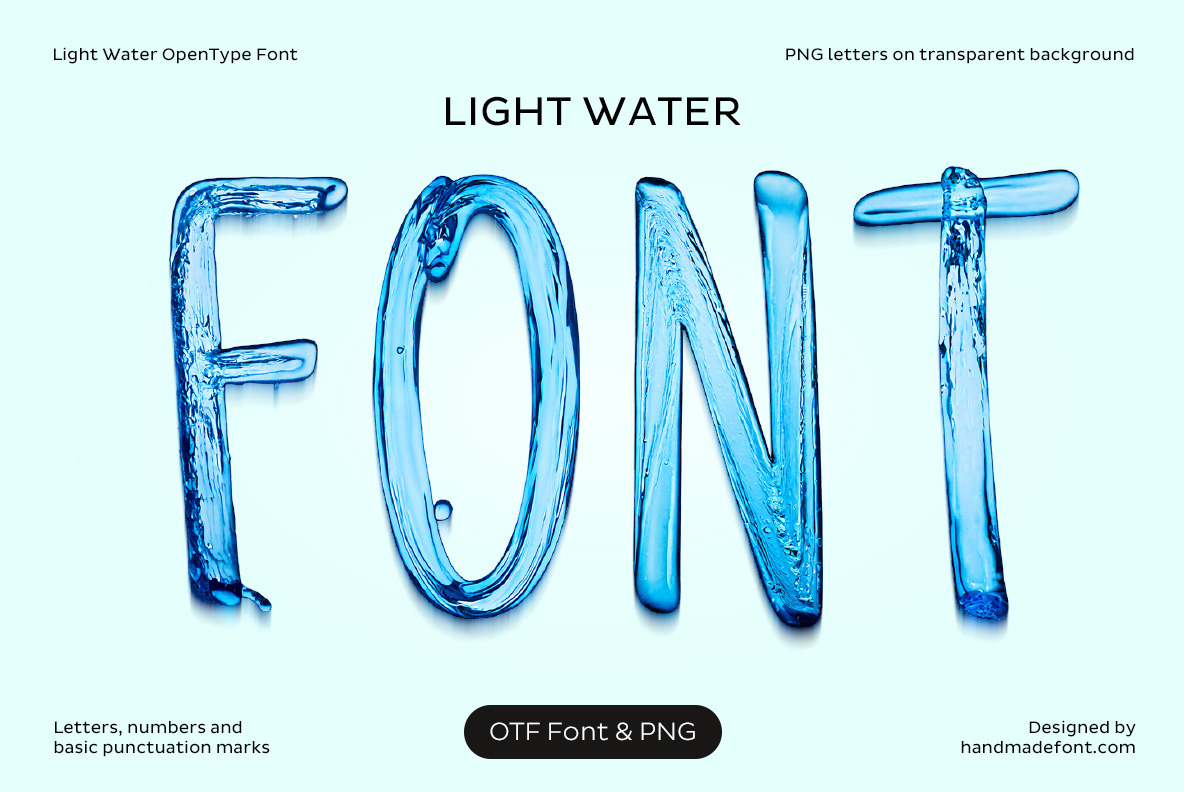
Light Water Font
Light Water Font is a typeface that looks like it just dripped out of a glacier and decided to become art. Crafted entirely from liquid blue transparency, each letter flows like a splash frozen in time. It’s clean, cool, and effortlessly refreshing—perfect for projects that need a touch of purity, elegance, or futuristic minimalism. Whether you're branding a luxury water brand, a tech startup, or a spa from the year 3025, this font brings clarity and motion to your words. It's not just readable—it’s drinkable (not literally, please). Quench your creative thirst with Light Water Font.
A high definition OpenType Font. Contains uppercase characters, numerals and basic punctuation. (Draw height roughly 800 pixels). All letters and glyphs that comprises this font you can see on the preview.
- Letters : A B C D E F G H I J K L M N O P Q R S T U V W X Y Z
- Numbers : 0 1 2 3 4 5 6 7 8 9
- Others : ! ? - . ' $ € % & #